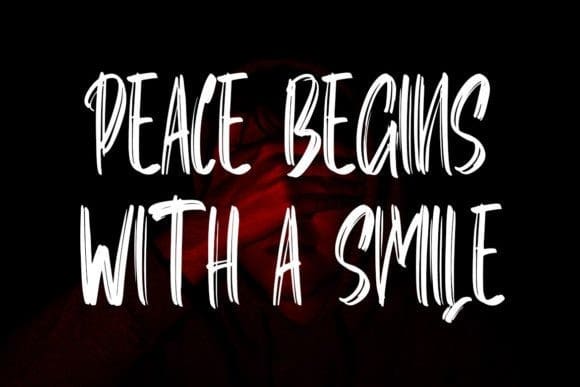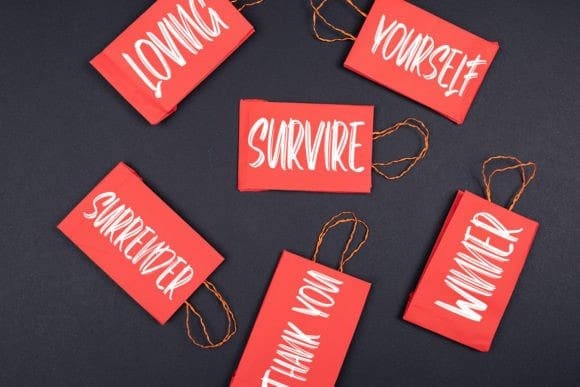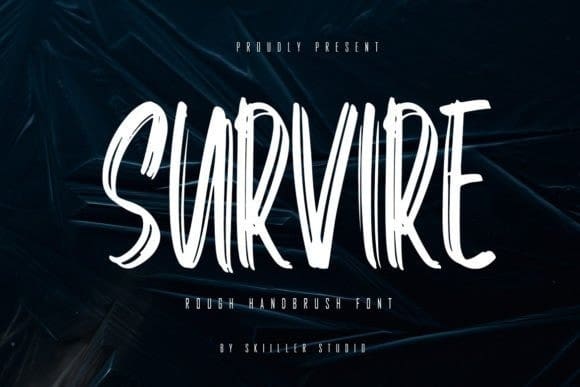
Survire Brush Font
Survire Brush Font is a modern brush display font, crafted to give your headlines and logotype projects a stylish touch. This font reads as strong, confident, and dynamic and can add tons of character to your designs.